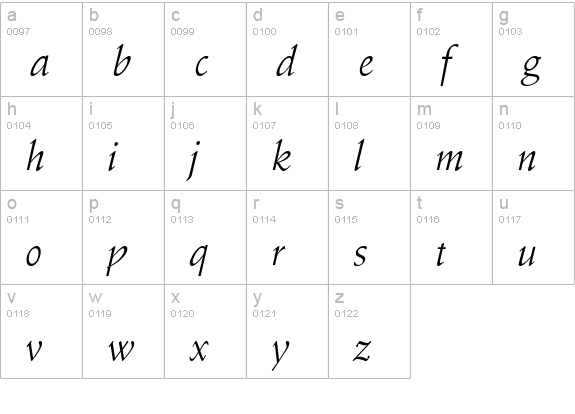
Deutch SSi Italic is a distinctive, italic variant in the Deutch typeface family \xE2\x80\x94 well suited to design and typography projects.
Deutch SSi Italic font is a stylish and elegant typeface that exudes sophistication and modernity. Its sleek and slanted design adds a touch of flair to any design project, making it perfect for both headings and body text. The italicized characters lend a sense of movement and dynamism to the text, drawing the reader's eye and creating a visually engaging experience. What sets Deutch SSi Italic font apart is that it is not only beautifully crafted but also completely free to use. You can download this stunning font at FontsMarket.com without any cost, making it a valuable addition to your font library without breaking the bank. Whether you're working on a branding project, a website design, or any other creative endeavor, Deutch SSi Italic font is sure to elevate your work and make a lasting impression.